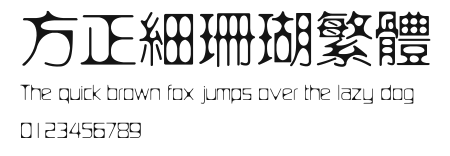
• Font Name: 方正细珊瑚繁体
• Full Font Name: 方正细珊瑚繁体
方正细珊瑚繁体.ttf is a modern, elegant sans-serif font designed for ultimate readability and visual harmony. Perfect for branding, headlines, web design, and print materials.